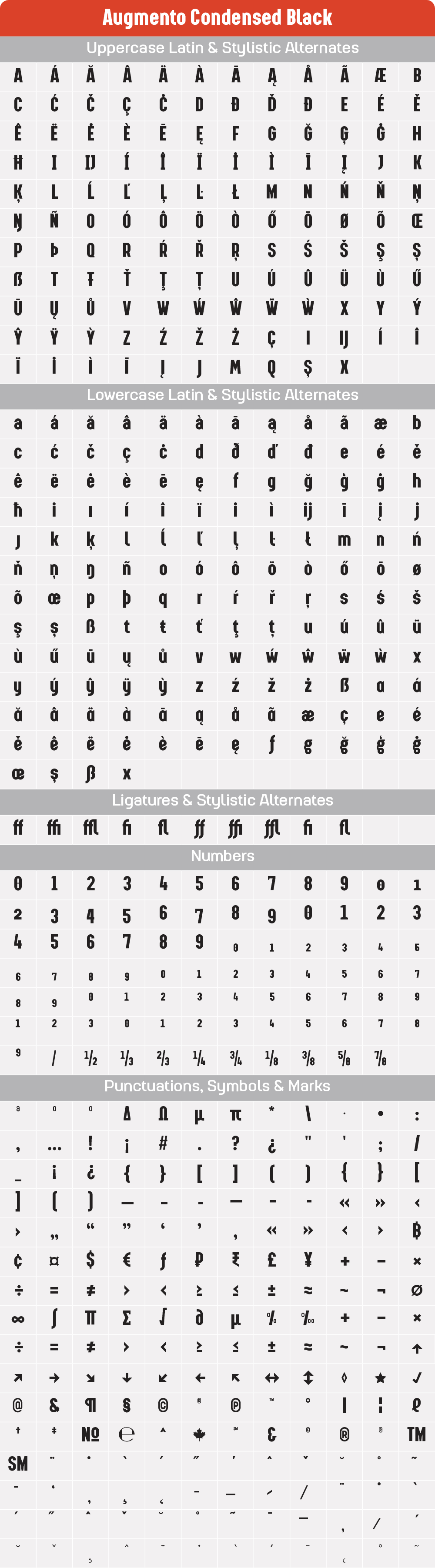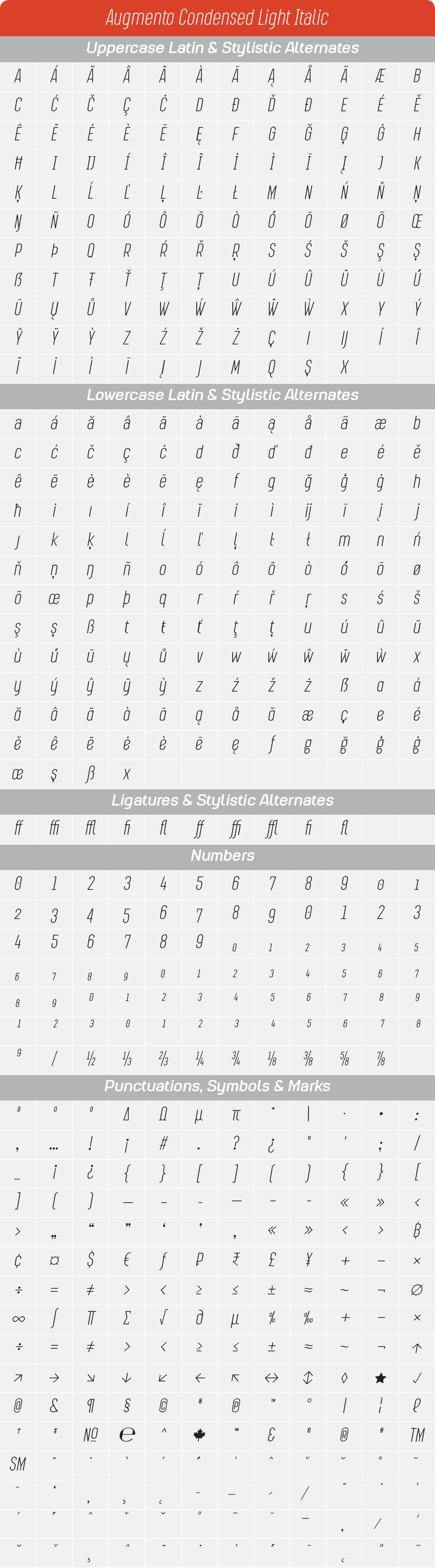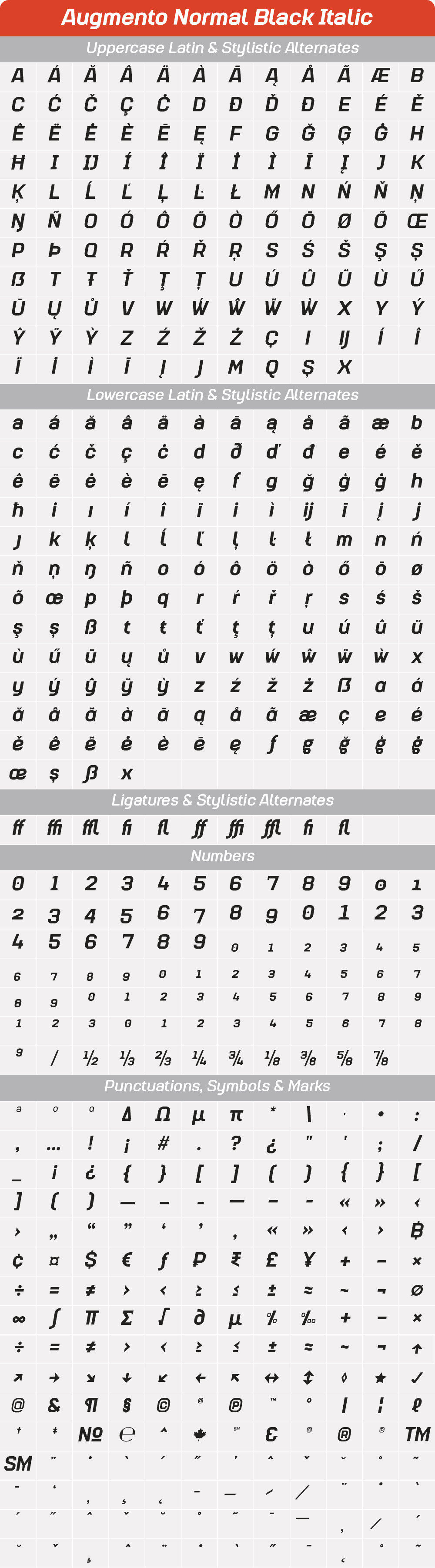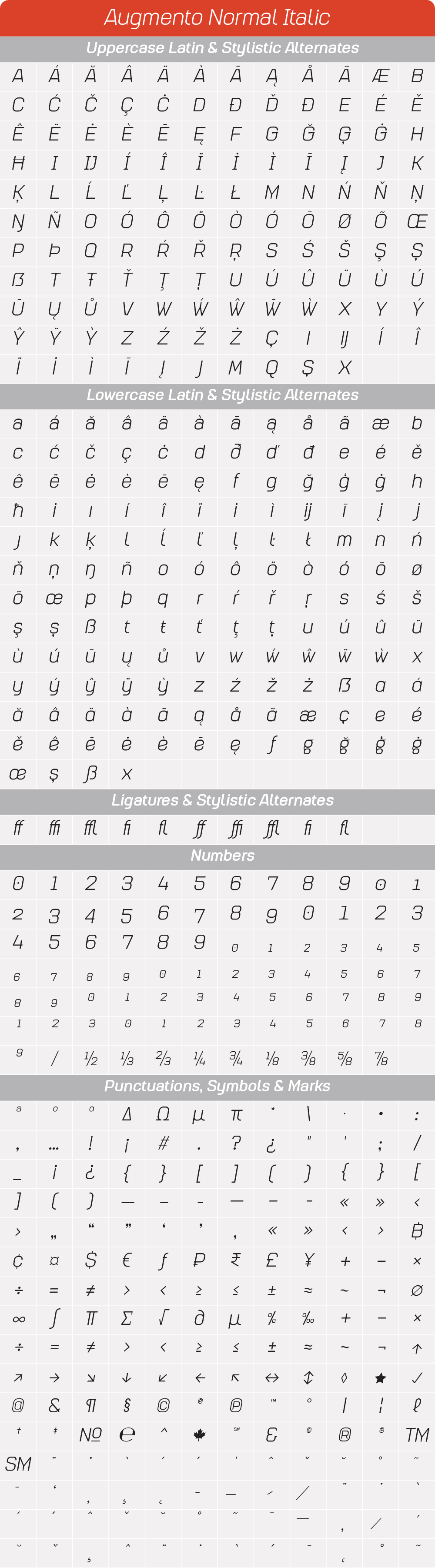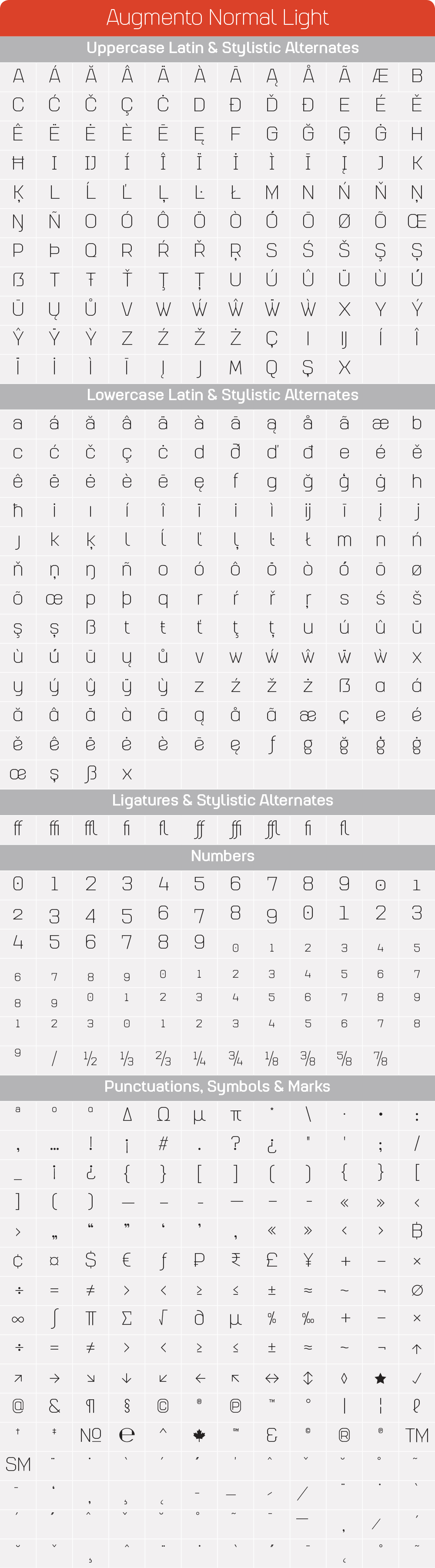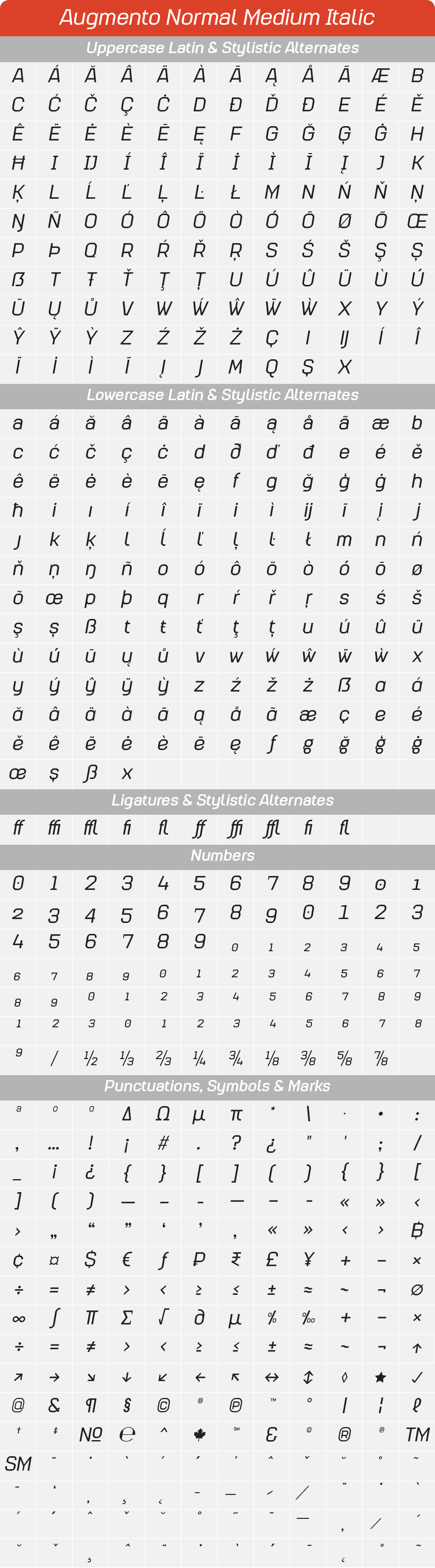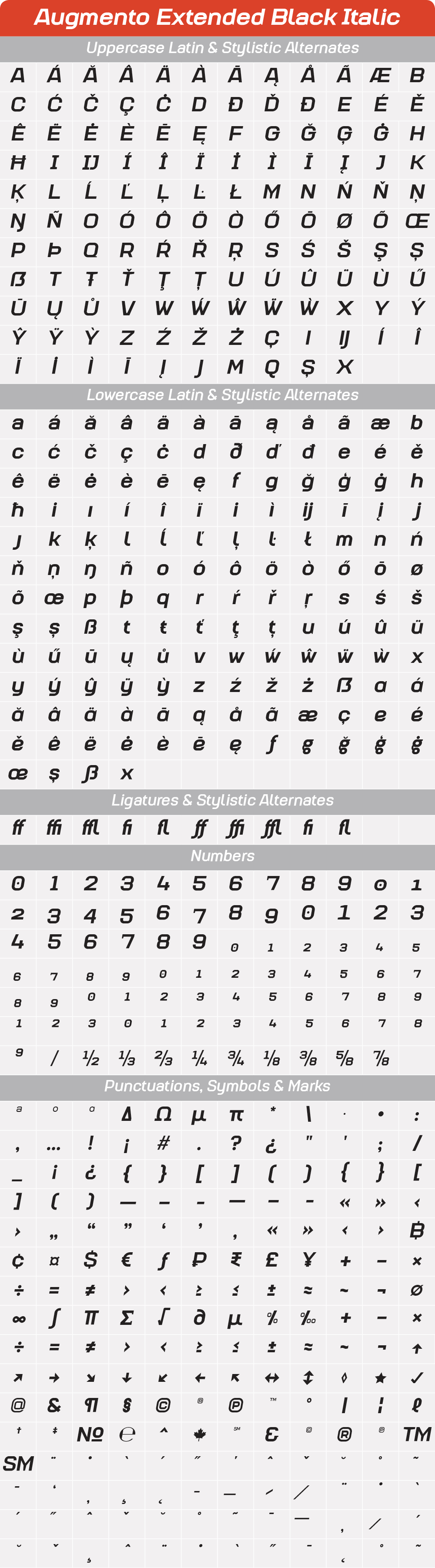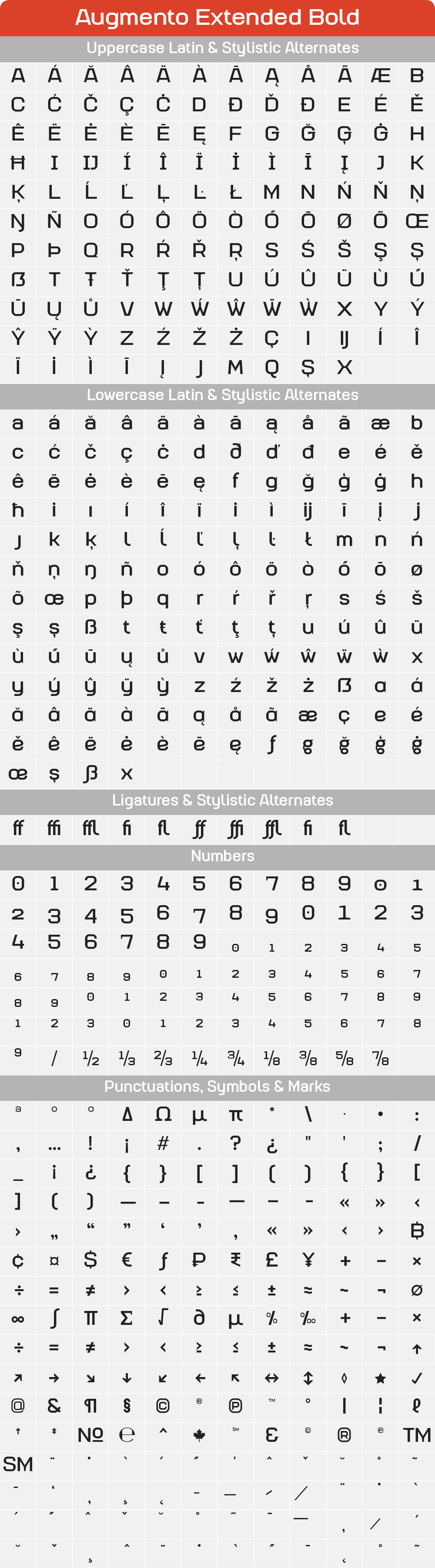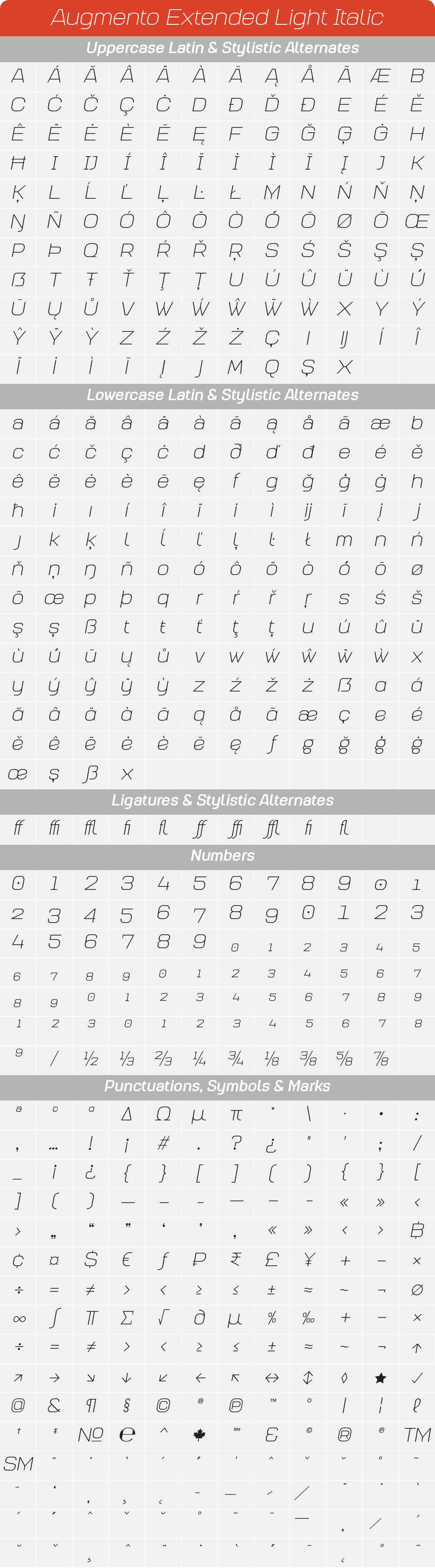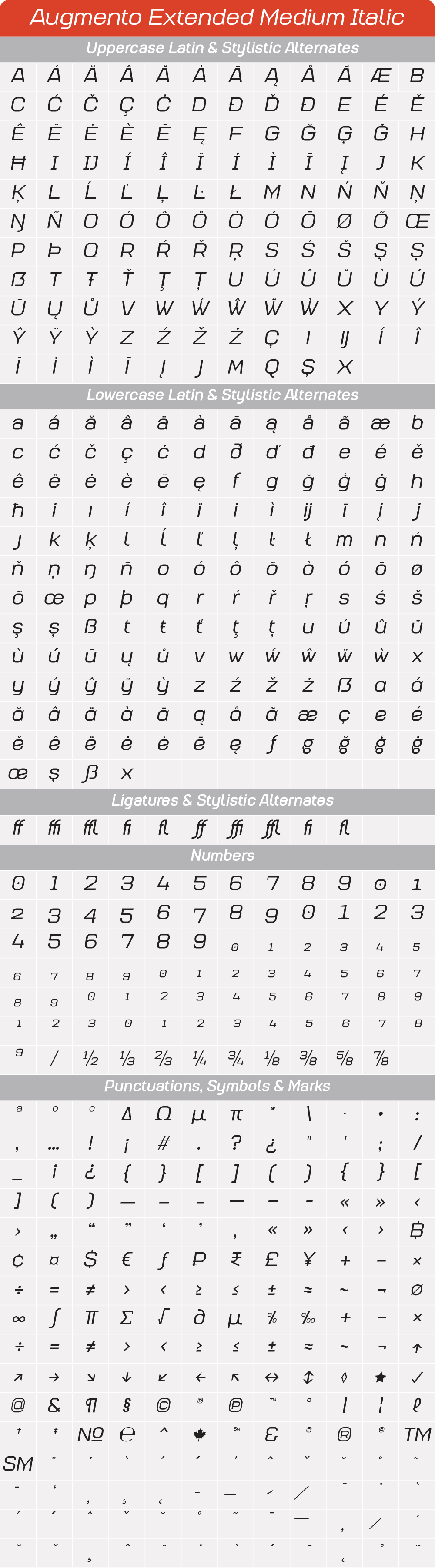
Augmento Glyphs & Pangrams
The completed Augmento™ font family consists of 3 widths, six weights, 36 styles, and over 550 glyphs each, and packs with OpenType features such as stylistic alternates, case-sensitive punctuations, and date vs fraction recognitions. It also comes with three sets of figures (Proportional lining, Proportional Oldstyle and Tabular lining) and supports most Latin-based languages.
Review Augmento™ Display Sans Serif Pangrams
Augmento Condensed Black weight displaying the English pangram. This ultra-heavy, narrow style is optimized for maximum-impact display headlines and large-scale applications.
Augmento Condensed Black Italic weight showcasing the French pangram. This style highlights Augmento's full support for French diacritics and is ideal for dynamic international advertising.
Augmento Condensed Bold weight displaying the Spanish pangram. This strong, narrow style offers robust readability and full support for the Spanish character set, including the ñ and accented vowels.
Augmento Condensed Bold Italic weight showcasing the German pangram. The bold italic angle is ideal for dynamic emphasis in German text, clearly supporting the Umlauts and eszett (ß).
Augmento Condensed Medium weight specimen demonstrating the Italian pangram. This intermediate weight is perfect for web and print applications, offering clean display and excellent diacritic support for Italian.
Augmento Condensed Medium Italic weight showing the Dutch pangram. This style provides clean, clear emphasis and full compatibility with the specific Dutch diacritics and character sets.
Augmento Condensed Regular weight displaying the Polish pangram. The standard weight provides clean readability and full support for the complex Polish character set and diacritics.
Augmento Condensed Italic weight showcasing the Swedish pangram. The italic angle is excellent for visual emphasis while fully supporting the specific Scandinavian letters.
Augmento Condensed Light weight displaying the Portuguese pangram. This thin weight lends an elegant, luxury aesthetic and supports all Portuguese accents and characters.
Augmento Condensed Light Italic weight showcasing the Danish pangram. The lightest angled style offers a minimalist, refined look with complete compatibility for Norwegian typesetting.
Augmento Condensed Thin weight specimen featuring the Finnish pangram. This extremely fine weight is optimized for subtle detail typography and complete character set support for Finnish.
Augmento Condensed Thin Italic weight displaying the Icelandic pangram. The thinnest angled style, focused on maintaining legibility even with complex characters like those found in Icelandic.
Augmento™ Normal Pangrams
Augmento Normal Black weight displaying the English pangram. This heavy, natural width is optimized for bold headline typography and high-impact digital campaigns in the standard style.
Augmento Extended Black Italic weight showcasing the French pangram. This style is perfect for wide, dynamic emphasis and confirms full French diacritic support in the extended width.
Augmento Normal Bold weight featuring the Spanish pangram. This bold style is highly legible for short, emphasized text and demonstrates excellent compatibility with the complete Spanish character set.
Augmento Normal Bold Italic weight showing the German pangram. Ideal for effective text emphasis in German documents, providing clear distinction for headlines and key phrases.
Augmento Normal Bold Italic
Augmento Normal Medium weight specimen demonstrating the Italian pangram. This style is optimal for body copy and sustained reading, providing clear legibility for Italian accents and text.
Augmento Normal Medium
Augmento Normal Medium Italic weight showing the Dutch pangram. Its balanced italic form is excellent for setting long-form content, ensuring comfortable reading flow and full support for Dutch character sets.
Augmento Normal Medium Italic
Augmento Normal Regular weight displaying the Polish pangram. This core style is engineered for maximum web and print legibility across European languages, with robust Polish diacritic support.
Augmento Normal Regular
Augmento Normal Italic weight showcasing the Swedish pangram. Ideal for providing emphasis in long-form text and maintaining readability of Scandinavian characters in standard width.
Augmento Normal Italic
Augmento Normal Light weight displaying the Portuguese pangram. This elegant, thin weight in standard width is perfect for minimalist design and supports all Portuguese accents and characters for clear reading.
Augmento Normal Light
Augmento Normal Light Italic weight showcasing the Danish pangram. The angled light weight provides a subtle, luxurious feel while ensuring complete character set compatibility for norwegian typesetting.
Augmento Normal Light Italic
Augmento Normal Thin weight specimen featuring the Finnish pangram. This extremely fine weight is optimized for small details on the web and complete character set support for Finnish.
Augmento Normal Thin
Augmento Normal Thin Italic weight displaying the Icelandic pangram. The thinnest angled style, focused on maintaining legibility and elegant texture for complex Icelandic characters.
Augmento Normal Thin Italic
Augmento™ Extended Pangrams
Augmento Extended Black weight displaying the English pangram. This ultra-heavy, wide style is optimized for maximum impact in ultra-wide display headlines and bold advertising campaigns.
Augmento Extended Black
Augmento Extended Black Italic weight showcasing the French pangram. This style is perfect for wide, dynamic emphasis and confirms full French diacritic support in the extended width.
Augmento Extended Black Italic
Augmento Extended Bold weight featuring the Spanish pangram. The broad, bold structure offers high visibility and demonstrates excellent compatibility with the complete Spanish character set for large-format display.
Augmento Extended Bold
Augmento Extended Bold Italic weight showing the German pangram. Ideal for effective, extra-wide text emphasis in German documents, clearly supporting the Umlauts and eszett (ß) in a broad format.
Augmento Extended Bold Italic
Augmento Extended Medium weight demonstrating the Italian pangram. This style is perfect for wide, editorial design layouts, providing clear display and excellent diacritic support for Italian text.
Augmento Extended Medium
Augmento Extended Medium Italic weight showing the Dutch pangram. Its extended, angled form is ideal for large-format text emphasis, ensuring reading flow and full compatibility with Dutch character sets.
Augmento Extended Medium Italic
Augmento Extended Regular weight displaying the Polish pangram. This core, wide style is engineered for maximum legibility in broad digital and print environments, with robust Polish diacritic support.
Augmento Extended Regular
Augmento Extended Italic
Augmento Extended Light weight displaying the Portuguese pangram. This thin, broad style creates an elegant, extra-wide typographic signature while fully supporting all Portuguese accents and characters.
Augmento Extended Light
Augmento Extended Light Italic weight showcasing the Danish pangram. The angled, wide light weight offers a luxurious, minimalist feel perfect for large-scale, international display use.
Augmento Extended Thin weight specimen featuring the Finnish pangram. This ultra-fine, wide style is ideal for subtle detail in large environments and ensures complete character set support for Finnish.
Augmento Extended Thin Italic weight displaying the Icelandic pangram. The thinnest angled, wide style, focused on maximum legibility and elegant texture for complex Icelandic characters in extended format.